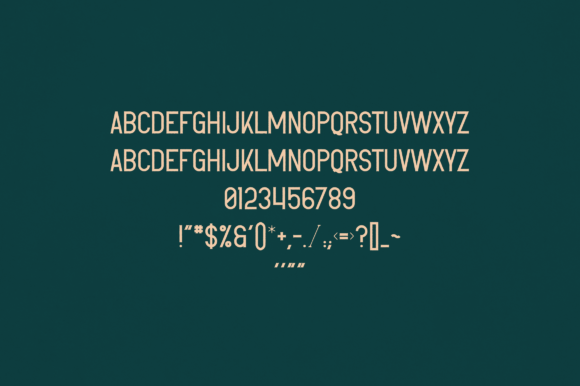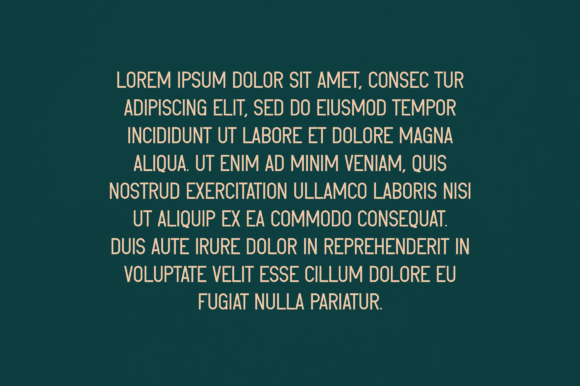
Birdie Font: Elevate Your Design with Elegance and Versatility
In the world of typography, a font can make or break a design. It’s the foundation upon which your creative vision is built, and choosing the right one can be a daunting task. However, if you’re looking for a font that embodies elegance, versatility, and uniqueness, look no further than Birdie Font. This stunning sans serif font is designed to transform your typography into something truly special, making it perfect for a wide range of design projects.
The Essence of Birdie Font
Birdie Font is an elegant and versatile sans serif font that has been crafted to bring a touch of sophistication to your designs. Its clean lines, subtle curves, and carefully considered letterforms make it an exceptional choice for designers and crafters looking to create something beautiful. Whether you’re working on a logo, branding project, headline, or plain text, Birdie Font has the power to enchant and captivate your audience.
One of the standout features of Birdie Font is its incredible versatility. This font is not limited to a specific design style or medium; instead, it can be used across a wide range of projects, including:
- Branding Projects: Create a lasting impression with Birdie Font’s elegant and sophisticated feel, perfect for logos, business cards, and brand guidelines.
- Home-Ware Designs: Add a touch of style and sophistication to your home-ware designs, from product packaging to labels and tags.
- Product Packaging: Make your products stand out on store shelves with Birdie Font’s unique and eye-catching typography.
- Magazine Headers: Elevate your magazine or editorial design with Birdie Font’s elegant and refined feel.
- Text Overlays: Use Birdie Font as a stylish text overlay to any background image, adding depth and visual interest to your designs.
Why Choose Birdie Font?
With so many fonts available, it’s essential to choose one that meets your design needs and exceeds your expectations. Here are just a few reasons why Birdie Font stands out from the crowd:
- Elegant and Versatile: Birdie Font’s unique blend of elegance and versatility makes it perfect for a wide range of design projects.
- Easy to Read: Despite its elegant feel, Birdie Font remains highly legible, making it perfect for both headlines and body text.
- Highly Customizable: Birdie Font can be easily customized to suit your design needs, from adjusting font sizes to experimenting with different colors and textures.
Tips for Using Birdie Font
To get the most out of Birdie Font, here are a few design tips to keep in mind:
- Experiment with Font Sizes: Birdie Font’s elegant feel works beautifully across a range of font sizes, from large headlines to smaller body text.
- Play with Color: Don’t be afraid to experiment with different colors and textures to add depth and visual interest to your designs.
- Mix and Match: Combine Birdie Font with other design elements, such as images and graphics, to create visually striking compositions.
In conclusion, Birdie Font is an exceptional sans serif font that offers a unique blend of elegance, versatility, and sophistication. Whether you’re a designer, crafter, or simply someone looking to elevate their typography, Birdie Font is an excellent choice. With its wide range of design possibilities, ease of use, and highly customizable nature, Birdie Font is sure to become a staple in your design toolkit.